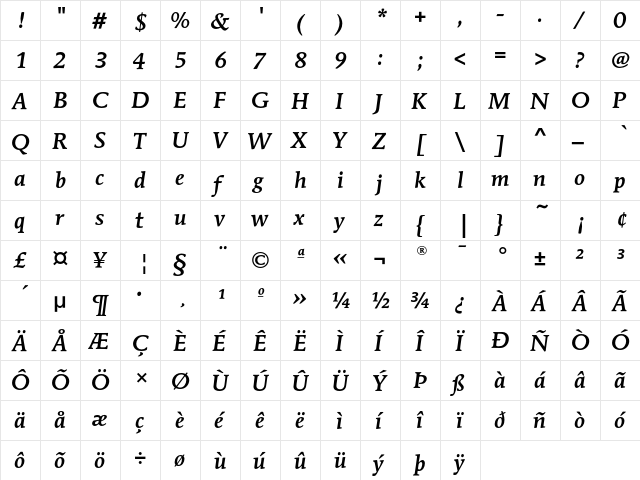
MendozaEF MediumItalic
Design Context for MendozaEF Typeface
MendozaEF takes a measured approach to typography — its balanced proportions and neutral character make it a reliable workhorse for both digital and print work. Its italic angle brings a sense of urgency and motion to the letterforms.
Pro Tip: Use MendozaEF for emphasis, pull quotes, and subheadings where its slanted energy can add rhythm to the layout.